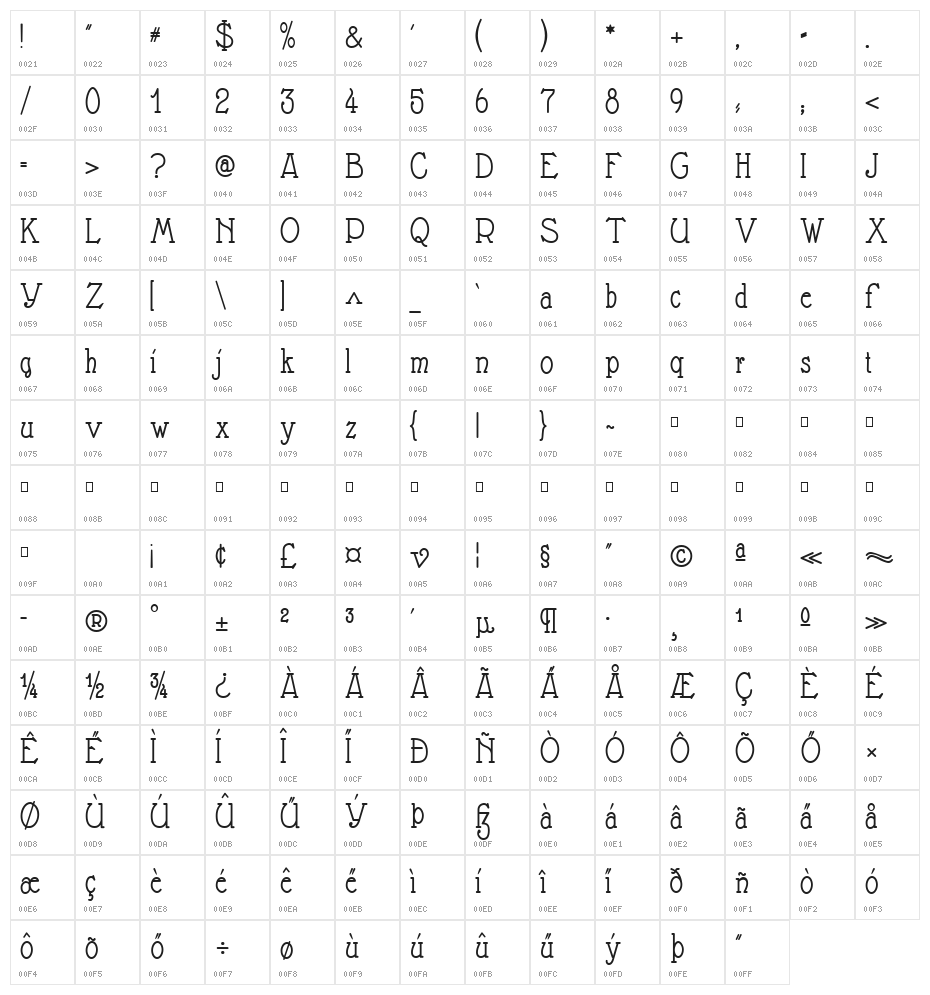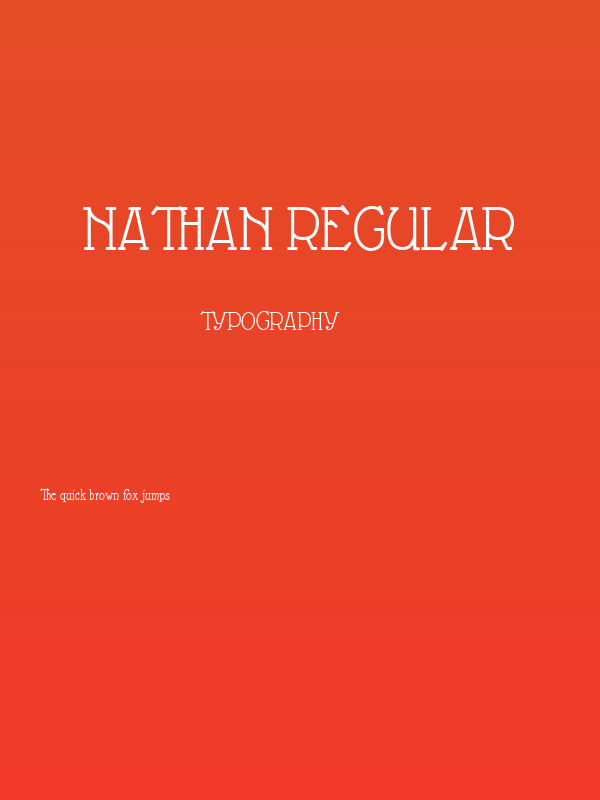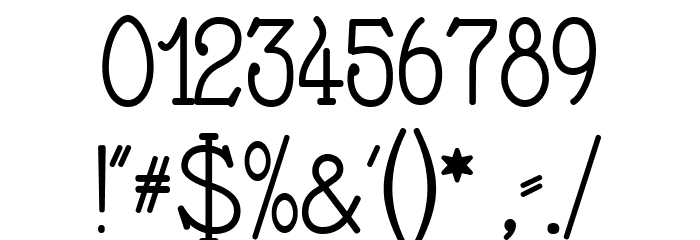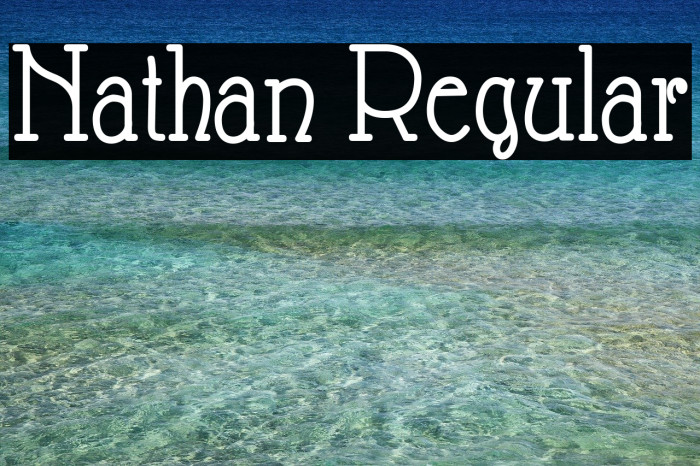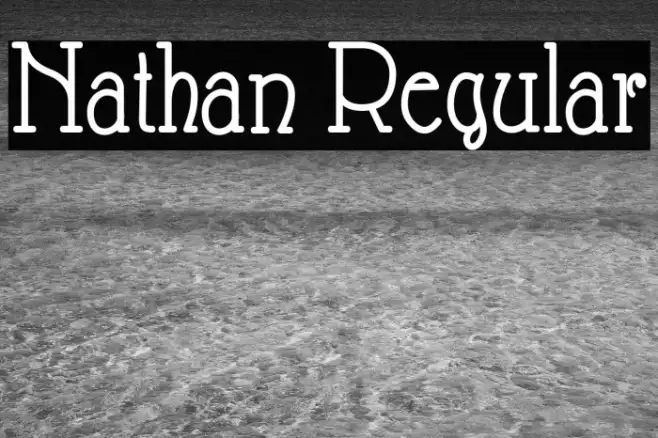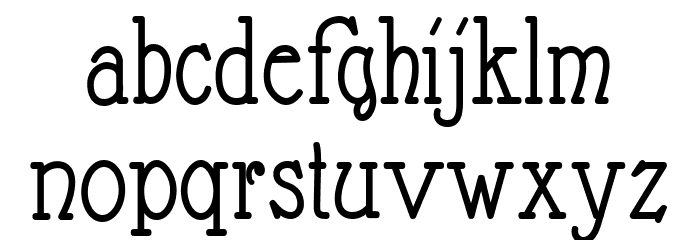
Nathan Regular Font
Nathan Regular Description
This font features a unique blend of classic and modern elements, characterized by its distinct serif style. The uppercase letters exhibit a traditional serif form with slight curves and angles, giving them a sophisticated yet approachable appearance. The lowercase letters maintain a consistent style, with rounded edges and a slightly playful touch. The numerals are clear and easy to read, matching the overall aesthetic of the font. Special characters are well-integrated, maintaining the font's cohesive look. This font is versatile, suitable for various design needs.